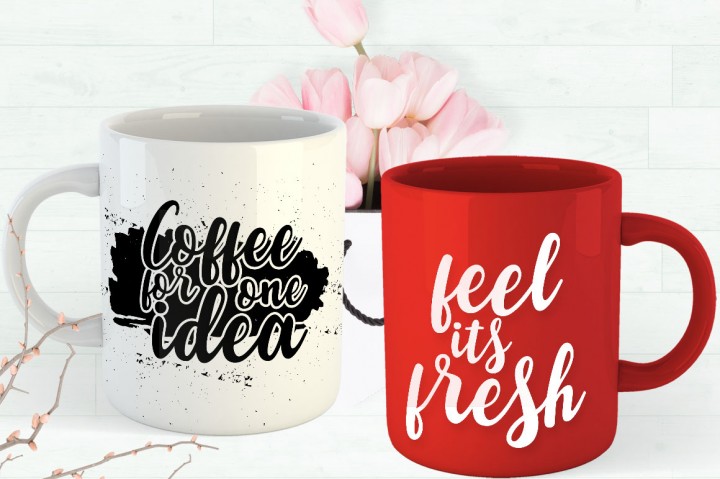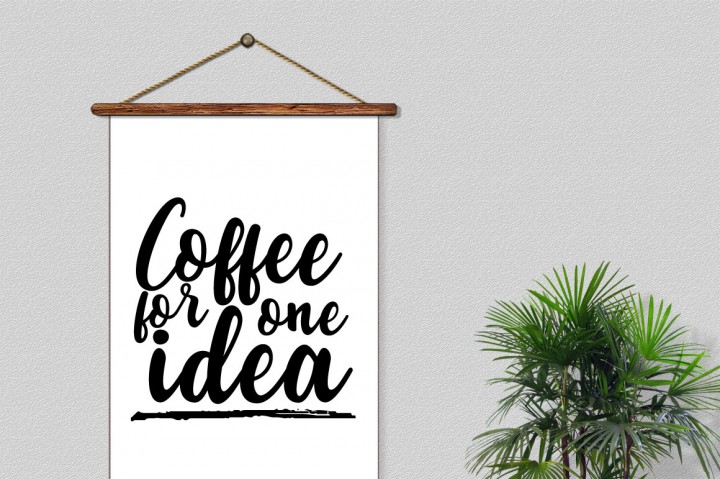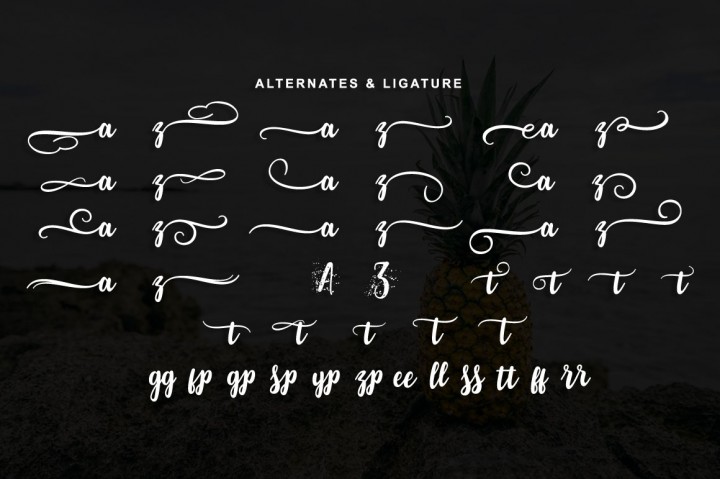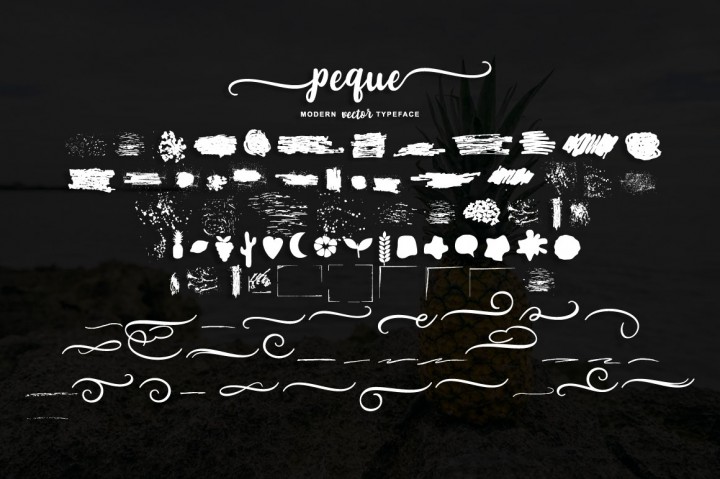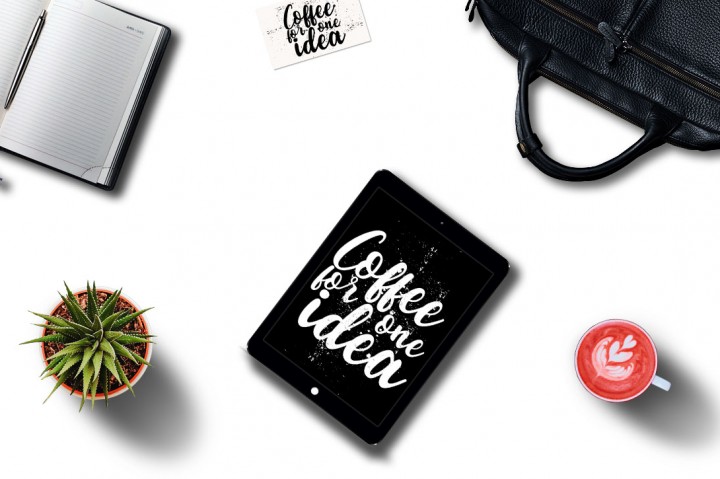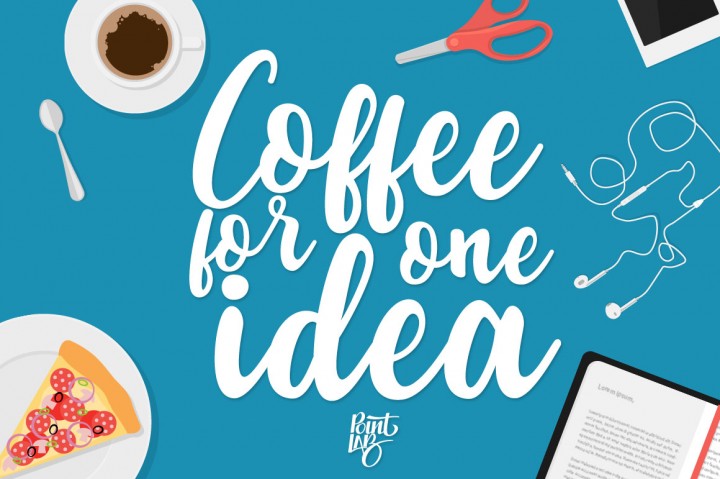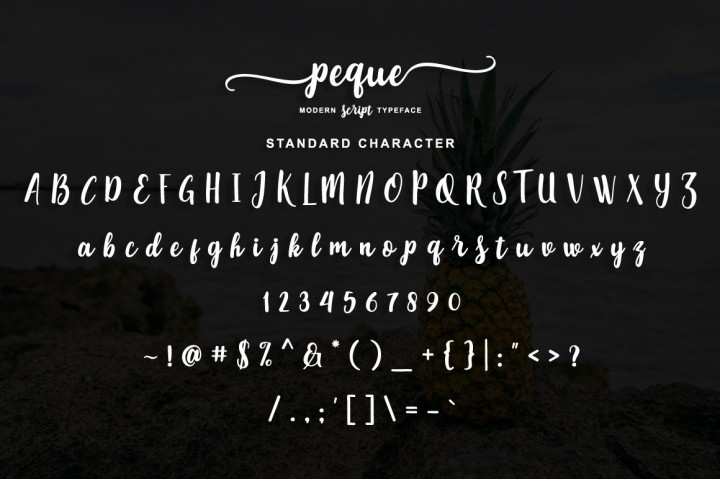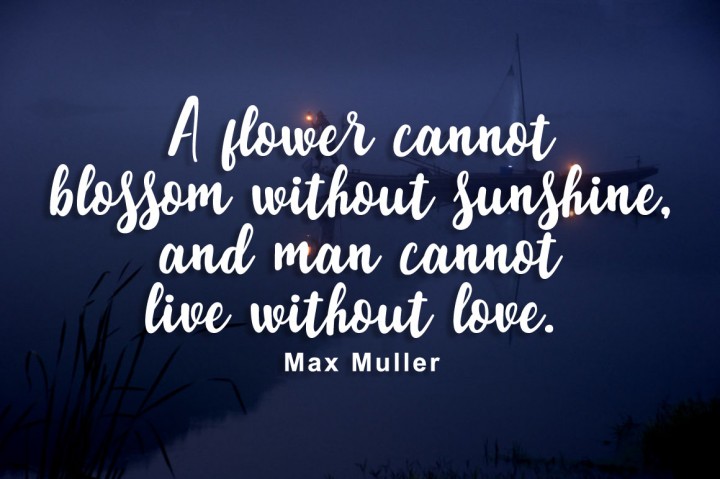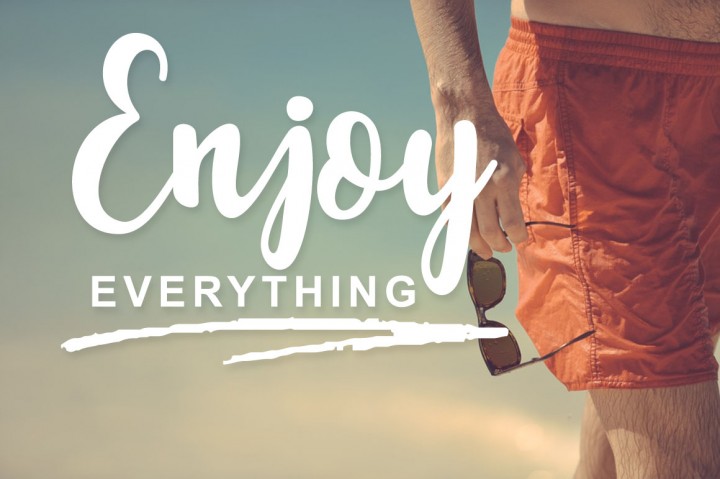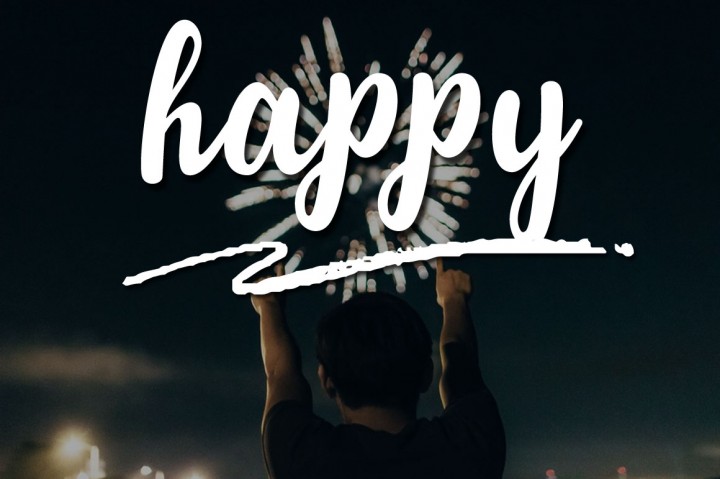
Peque Font
About Peque Font
Peque is a fresh, modern script font designed by hand by the PointLab foundry.
The Peque font comes with Peque Script and Peque Vector, a fun playful font filled with illustrations.
Peque features over 700 high quality glyphs and is packed with swashes and swooshes. Never run out of ideas with these stunning 2 fonts.